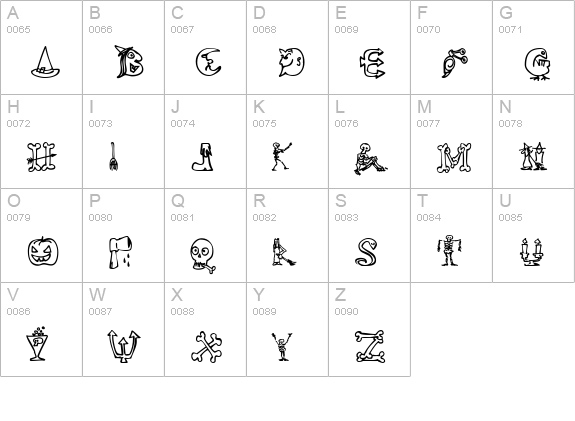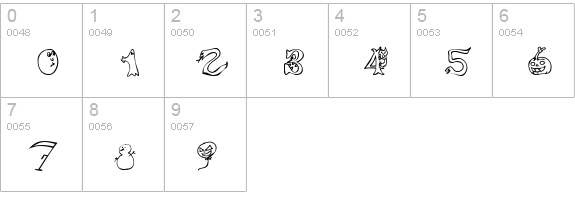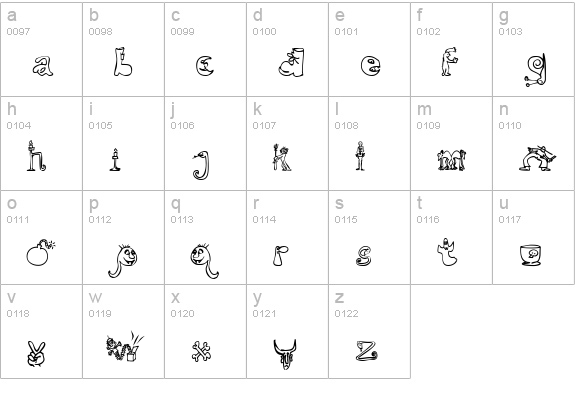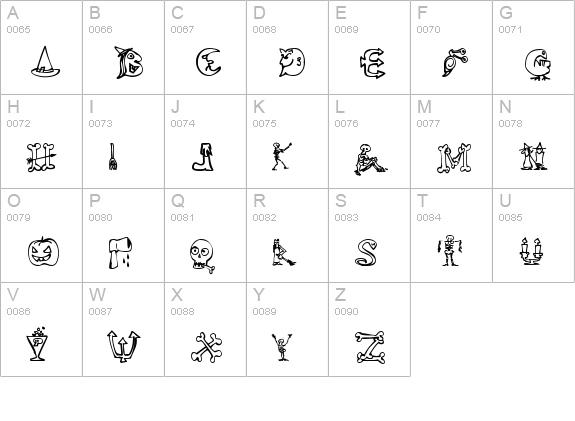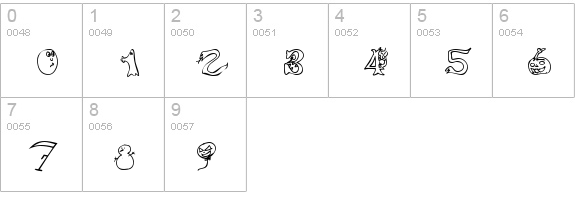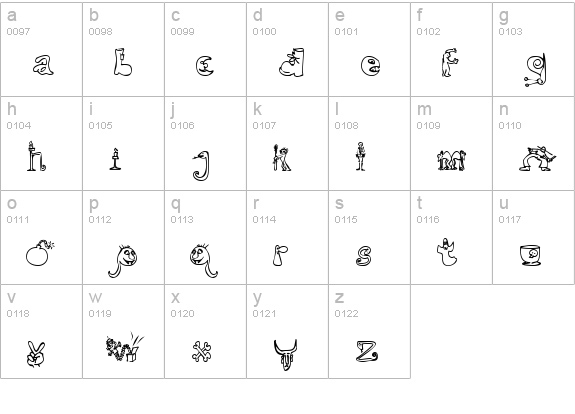
Halloween Match Font Details
Introducing Halloween Match font, a spooktacular typeface that is sure to give your Halloween designs a hauntingly good look! With its eerie and playful style, this font captures the essence of the Halloween spirit, making it perfect for anything from party invitations to Halloween-themed posters. The Halloween Match font features a unique blend of creepy and fun elements, with each letter designed to resemble a spooky Halloween character or object. From ghostly skulls to wicked witches' hats, every detail of this font has been meticulously crafted to create a truly chilling effect. Not only does Halloween Match font bring your designs to life, but it also does so for free! Yes, you read that right - this font is freely available to download at FontsMarket.com. Now you can add that extra touch of Halloween magic to your projects without having to worry about breaking the bank. So why wait? Embrace the Halloween spirit and bring your designs to life with the captivating Halloween Match font. Download it for free at FontsMarket.com and let your creativity run wild this Halloween season. Get ready to leave a lasting impression that will have everyone under your spell!